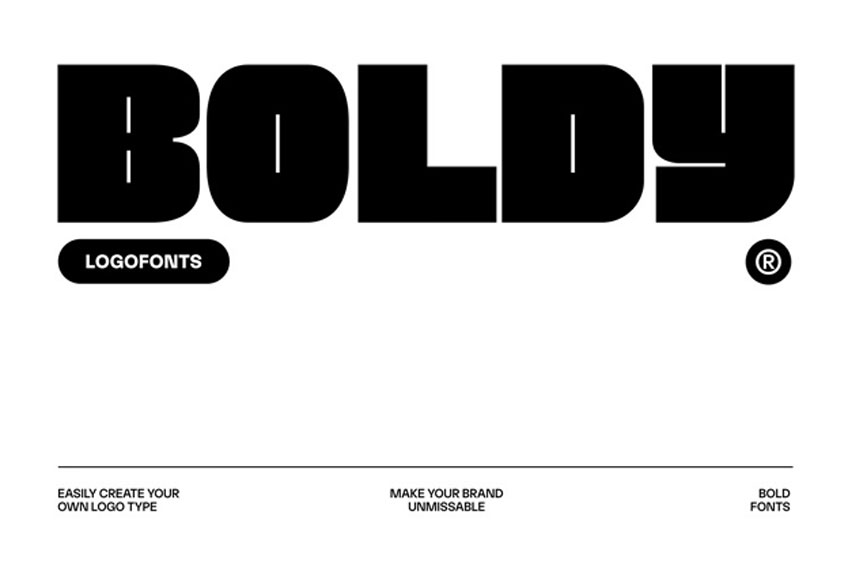
Boldy Font is a modern display font designed with strong geometric shapes and a bold visual character that instantly commands attention. Designed for elegance and crafted for timeless branding, this font combines clean structure with a modern minimalist aesthetic, making it perfect for logo design, fashion campaigns, corporate branding, posters, and creative display projects. Its thick letterforms and balanced proportions create a confident and professional look that feels both stylish and contemporary.
Crafted for brands that want to stand out with a clean and memorable identity, Boldy works beautifully across intro titles, editorial layouts, geometric compositions, packaging, and modern visual systems. The bold typography style delivers a sleek and elegant presence while maintaining versatility for both corporate and creative applications. Whether used for fashion branding, premium logos, or minimalist design concepts, Boldy transforms every project into a striking visual statement with timeless modern appeal.
Designed for elegance, crafted for timeless branding.